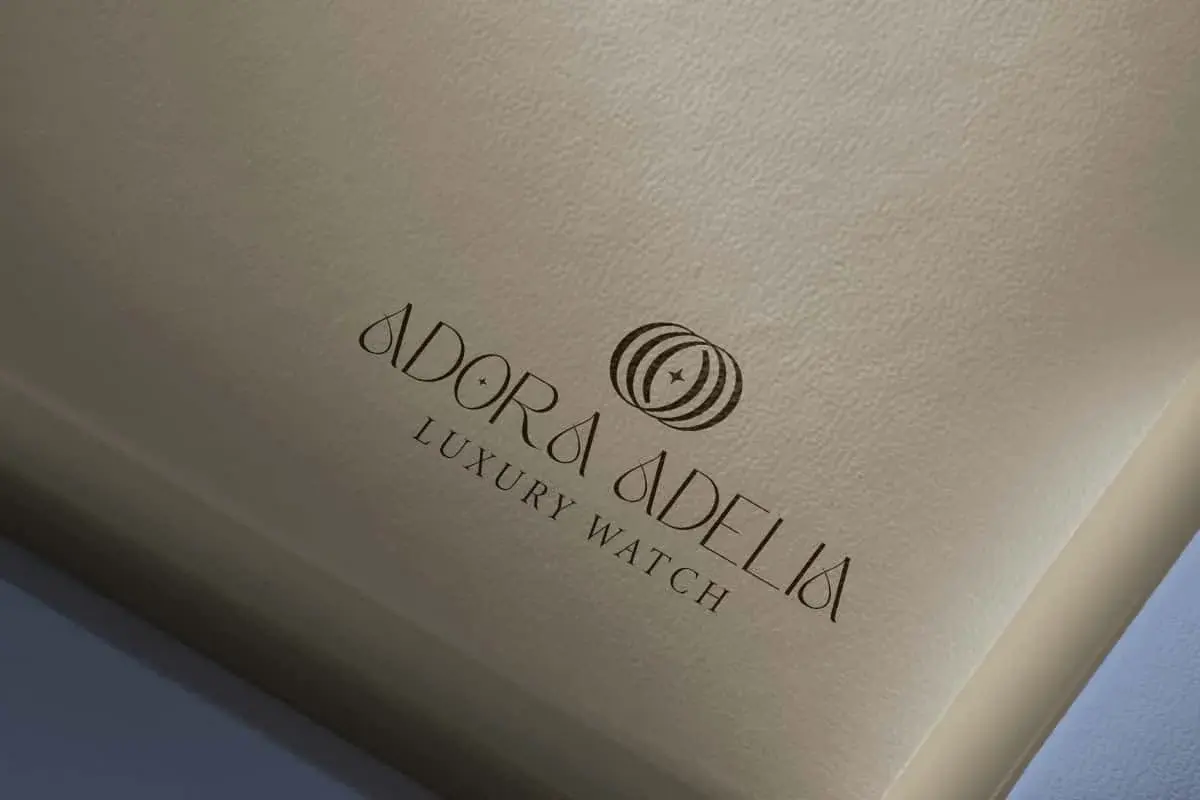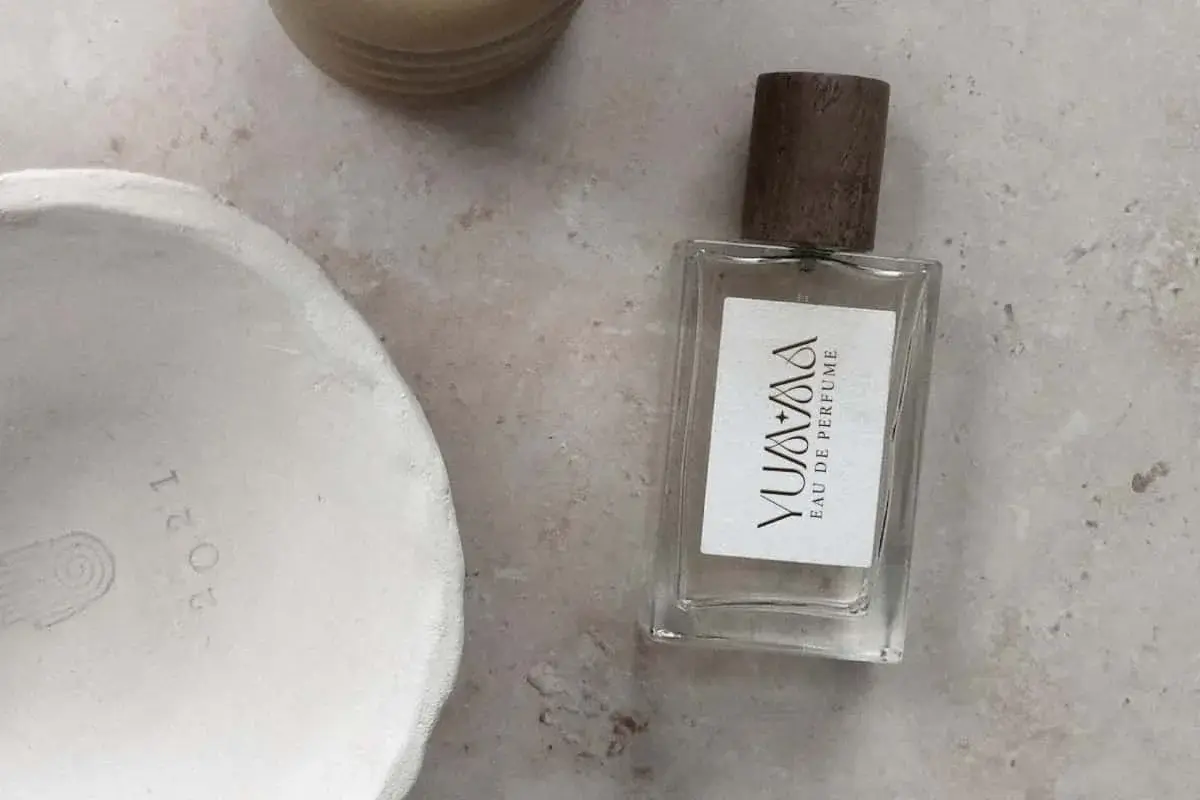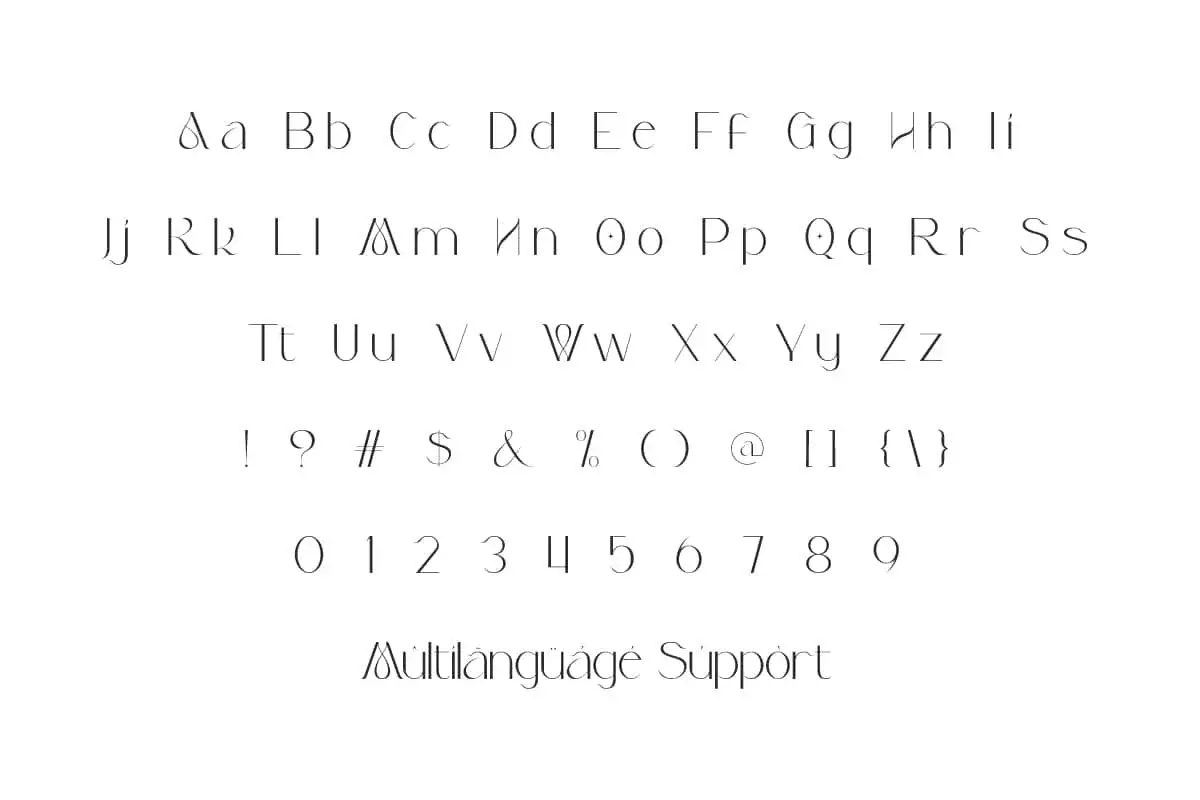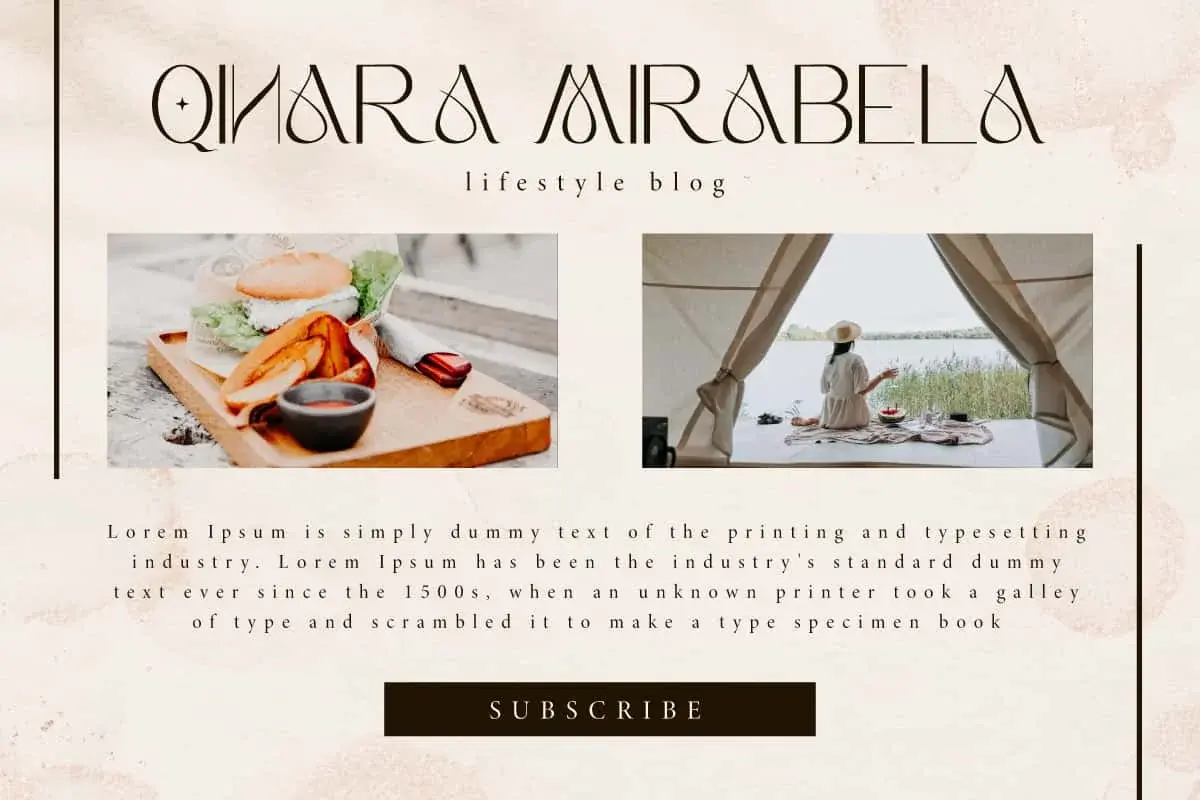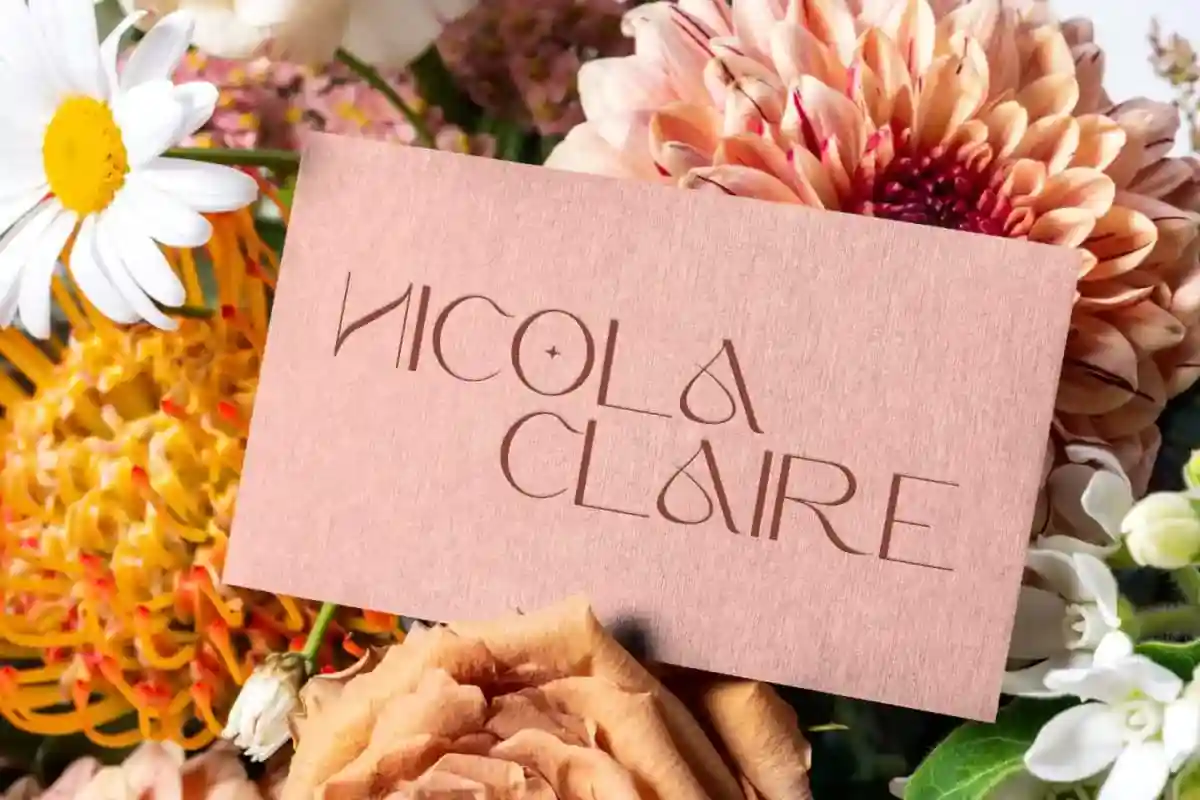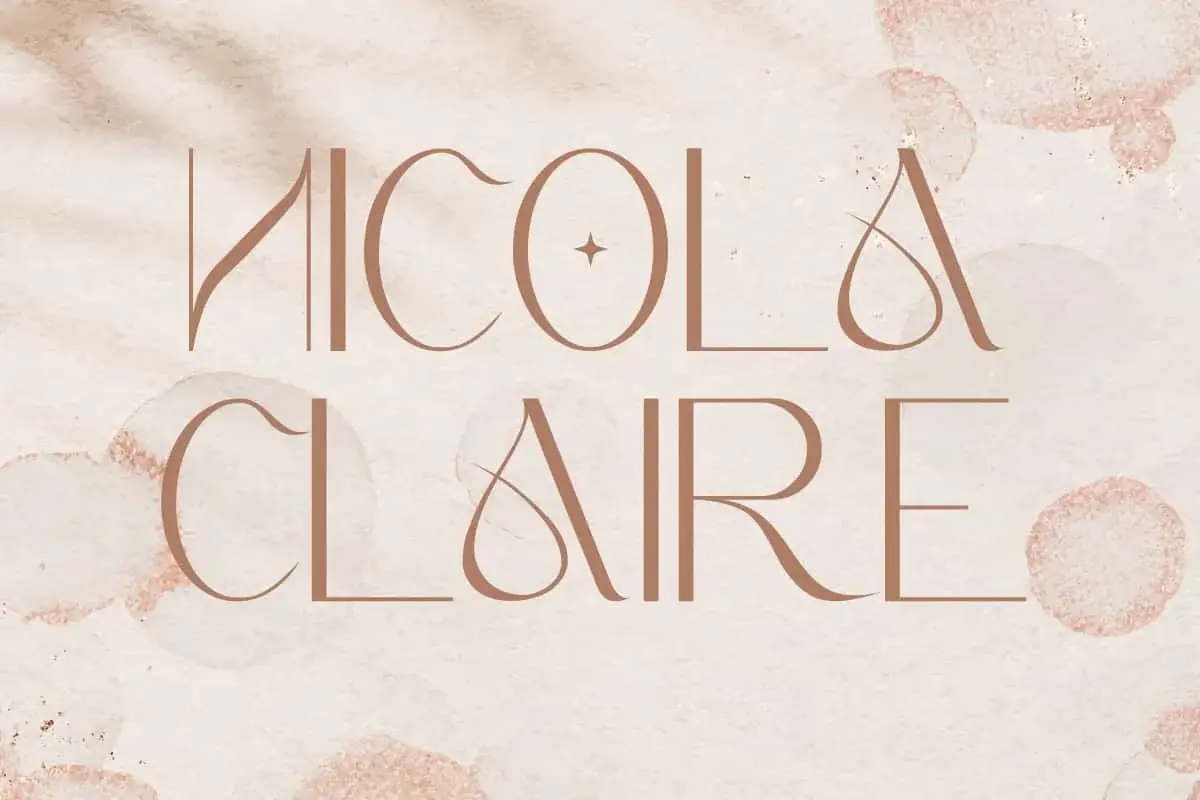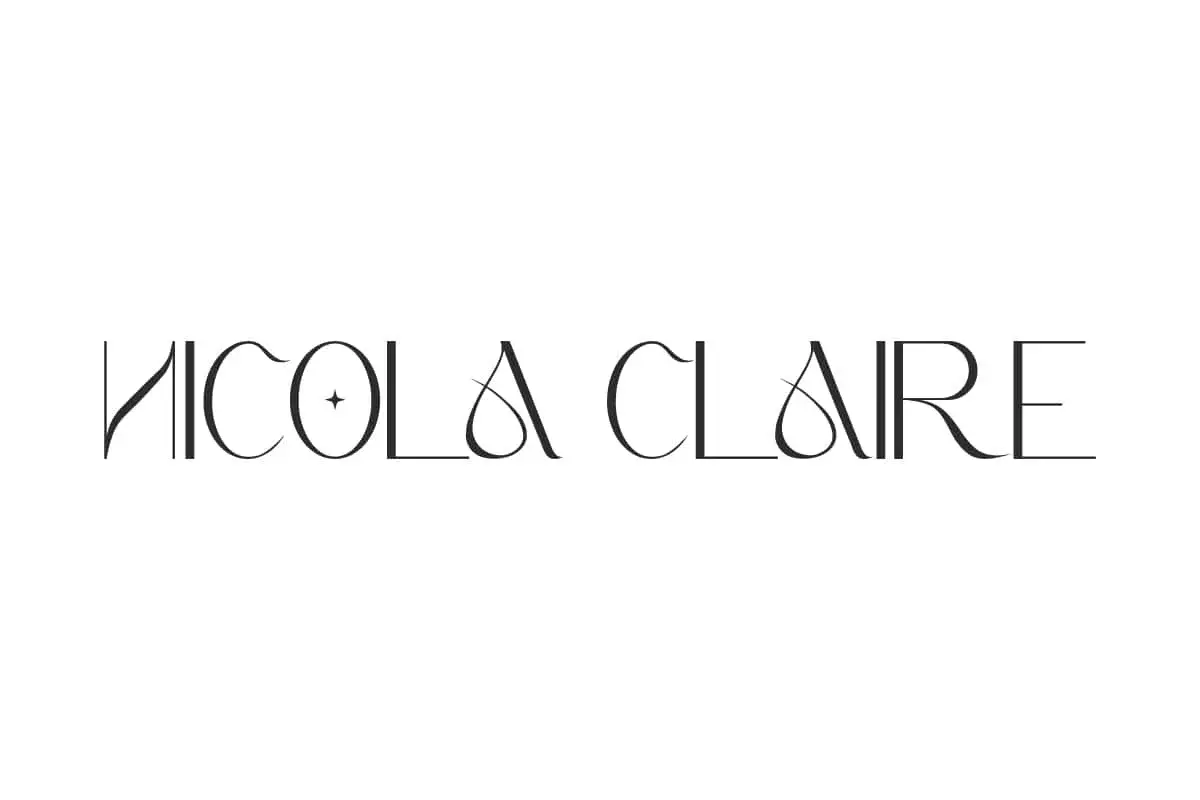
Nicola Claire Font
Nicola Claire Font is a luxurious typeface that is timelessly beautiful and created primarily for headers, jewelry brand, product packaging, etc.
Nicola Claire Font is Sans/Serif an elegant luxurious typeface that is timelessly beautiful with a modern and stylish touch. This typeface is light and contemporary, seamlessly blending graceful curves with flexibility. Created for branding logo, greeting cards, illustrations, labels, packaging design, poster, screen print, signage, websites, and some other works.
Nicola Claire Font contains complete basic characters of Uppercase and Lowercase Letters, Numbers, Symbols, and Punctuation. It gives you experimental possibilities in amazing typography that works well in a variety of letters and other characters. The look of this font will catch the eye for use in businesses such as accessories and watches, content creator, fashion, florist, graphic design, jewelry, perfume brand, salons, and more.